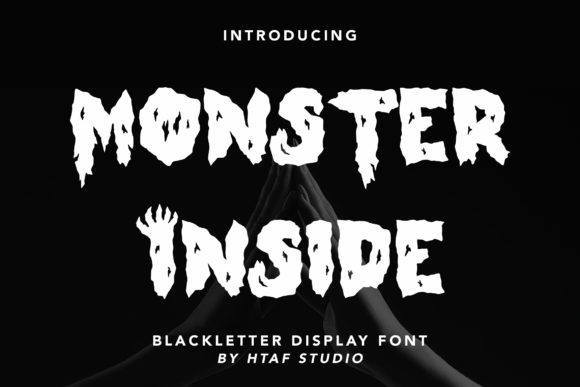
Journey into the realm of the macabre and unleash your creative nightmares with Monster Inside Font, the ultimate display font designed to send shivers down your spine. Inspired by the darkest corners of the gothic and horror genres, this font will transform your designs into eerie masterpieces that haunt the imagination.
Crafted with meticulous attention to detail, Monster Inside Font boasts a chillingly beautiful aesthetic that is perfect for conjuring up spine-tingling stories, haunting posters, and hair-raising marketing campaigns. Its sharp edges and sinister curves evoke a sense of dread and intrigue, capturing the essence of horror and leaving your audience spellbound.
With its captivatingly creepy style, Monster Inside Font adds an undeniable touch of spooktacular flair to any project. Whether you're a seasoned horror enthusiast or simply looking to add a touch of the macabre to your designs, this font is the perfect choice for unleashing your creativity and captivating your audience.
Impress your readers with haunting headlines, send chills down their spines with bone-chilling posters, and create designs that linger in their minds long after they've looked away. Monster Inside Font is the key to unlocking your creative nightmares and unleashing your inner horror master.
So, dare to embrace the darkness and let Monster Inside Font be your guide into the realm of the supernatural. Prepare to horrify and enthrall your audience with designs that will haunt their dreams and leave them craving more. Immerse yourself in the macabre and let your imagination run wild with Monster Inside Font.